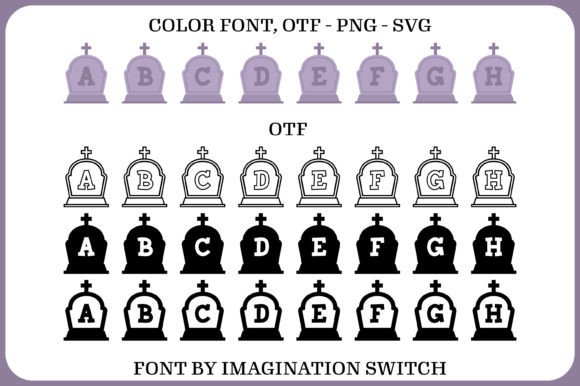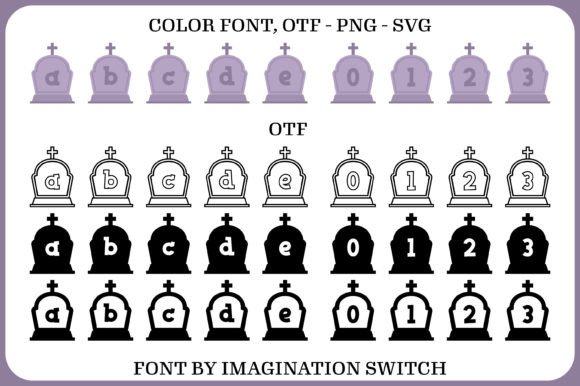
Cemetery Font: A Captivating Typographic Creation
In the world of typography, a well-designed font can elevate a project from ordinary to extraordinary. Cemetery Font is one such typographic creation that has been meticulously crafted to captivate audiences with its intriguing colors and visually appealing presentation. This font is a complete set of characters, including uppercase, lowercase, and numbers, making it a versatile choice for a wide range of projects.
Design and Features
Cemetery Font has been designed with flexibility in mind, making it suitable for various types of projects, including print designs, web designs, promotional materials, and more. The font features a unique and captivating design, with a complete set of characters that ensure excellent legibility and visual appeal. The inclusion of uppercase, lowercase, and numbers provides designers with the flexibility to use the font across different mediums and applications.
Key Benefits
• Excellent Legibility: Cemetery Font has been designed to provide clear and easy-to-read text, making it perfect for body text, headings, and titles.
• Visually Appealing: The font’s unique design and intriguing colors make it a great choice for designers looking to add a touch of elegance and sophistication to their projects.
• Flexibility: With a complete set of characters, Cemetery Font can be used across various types of projects, from print designs to web designs and promotional materials.
Applications and Use Cases
Cemetery Font is a versatile font that can be used across various applications and industries. Some of the key use cases include:
• Print Designs: Use Cemetery Font for brochures, flyers, posters, and other print materials that require a touch of elegance and sophistication.
• Web Designs: The font’s excellent legibility and visually appealing presentation make it perfect for web designs, including website headers, body text, and more.
• Promotional Materials: Cemetery Font is a great choice for promotional materials, such as business cards, letterheads, and envelopes.
• Crafting and DIY Projects: The font’s unique design and intriguing colors make it a great choice for crafters and DIY enthusiasts looking to add a personal touch to their projects.
To get the most out of Cemetery Font, here are some tips for designers and crafters:
• Experiment with Colors: Cemetery Font’s intriguing colors can be used to add a touch of elegance and sophistication to your projects. Experiment with different color combinations to find the one that works best for your project.
• Play with Typography: The font’s unique design and excellent legibility make it perfect for typography-focused projects. Play with different font sizes, styles, and arrangements to create visually appealing text.
• Use it for Headings and Titles: Cemetery Font’s visually appealing presentation makes it perfect for headings and titles. Use it to add a touch of elegance and sophistication to your project’s headings and titles.
Cemetery Font is a captivating typographic creation that offers a unique and visually appealing design. With its complete set of characters, excellent legibility, and flexibility, this font is perfect for a wide range of projects, from print designs to web designs and promotional materials. Whether you’re a designer or crafter, Cemetery Font is a great choice for adding a touch of elegance and sophistication to your projects.